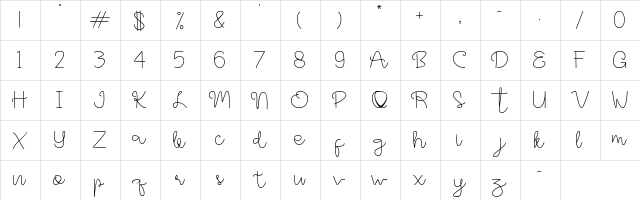
Hyper Script Demo Regular Font Preview
Hyper Script Demo Regular
Hyper Script Demo Regular Font Details
| Designer | Estiko Priyanto |
Design Context for Hyper Script Demo Typeface
Hyper Script Demo flows with the natural rhythm of handwritten lettering, making it ideal for designs that call for warmth and personal expression.
Font Pairing: Combine Hyper Script Demo with a simple geometric sans for maximum contrast — the tension between flowing curves and clean structure is a classic typographic pairing.
Pro Tip: Use Hyper Script Demo for short runs of text — names, titles, or taglines. Extended body copy in script faces tires the eye quickly.